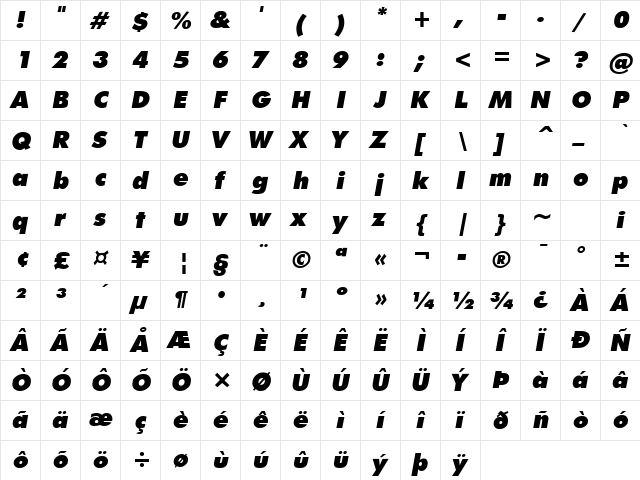
Futuri Extra Bold Oblique Font Preview
Design Context for Futuri Extra Bold Typeface
Futuri Extra Bold has a distinctly futuristic character, with geometric precision and clean angles that feel at home in technology, gaming, and sci-fi contexts. The dynamic lean of this cut emphasises speed and emphasis in any layout. Its bold stroke weight gives it real presence on the page.